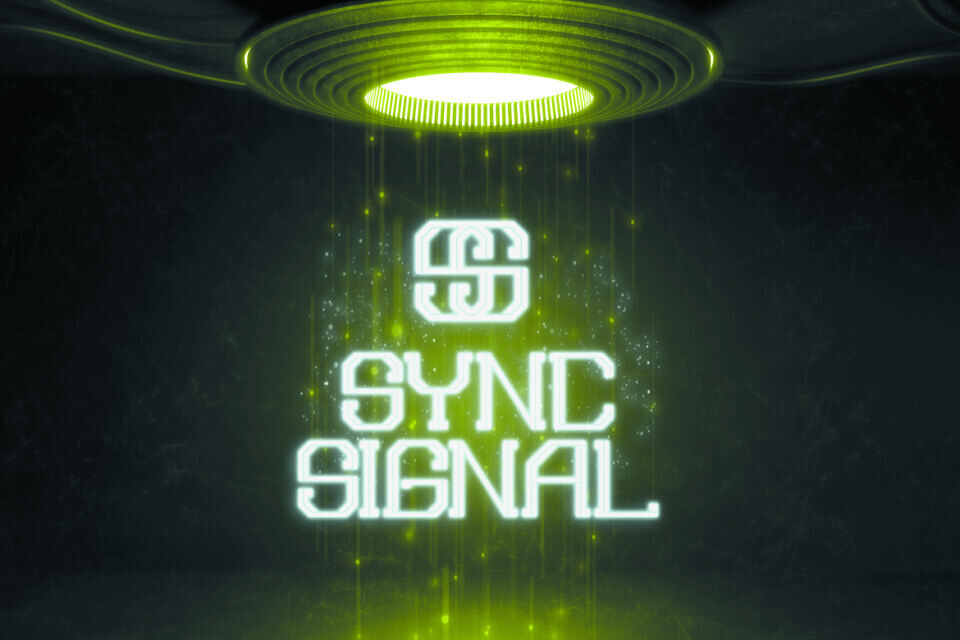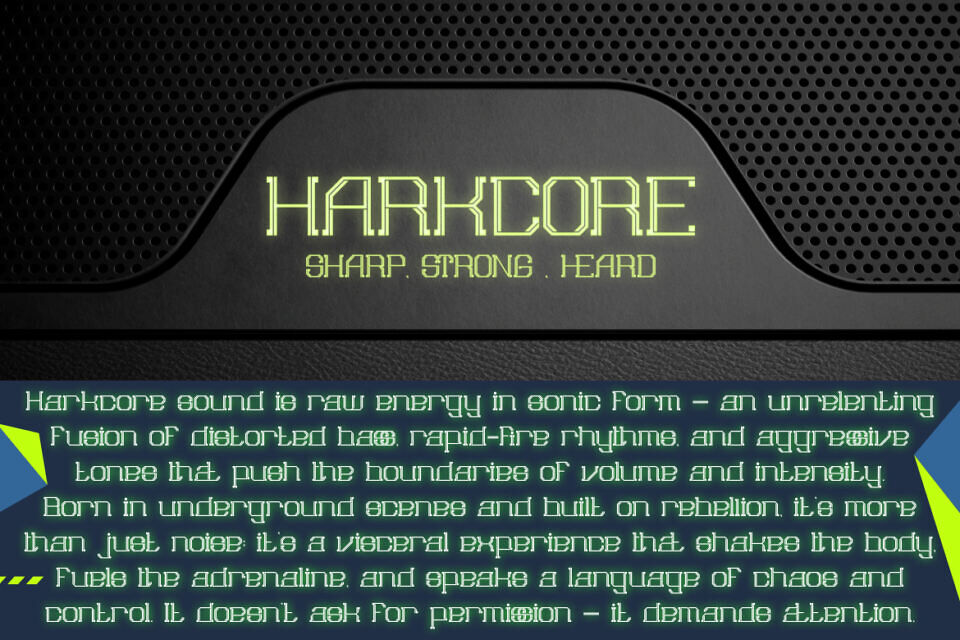
Astro Techno Font
Astro Techno is a bold display font inspired by sci-fi, retro-futurism, and digital tech. With angular, segmented letterforms and layered contours, it evokes motion and cybernetic flair. Perfect for music posters, gaming UIs, tech branding, or digital launches, it delivers high-impact visuals with geometric precision.
Featuring uppercase, lowercase, alternates, and full symbol support, Astro Techno ensures harmony and versatility across designs. Ideal for conveying innovation and energy, this font doesn’t just communicate—it transmits your vision.